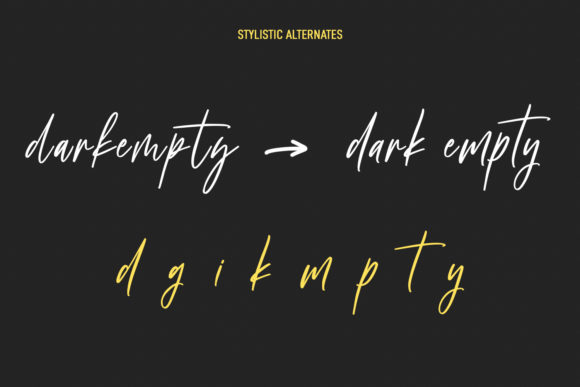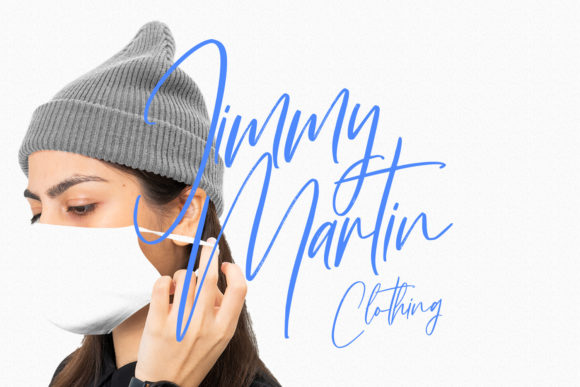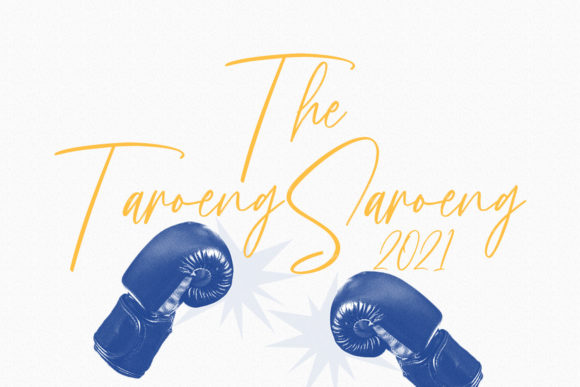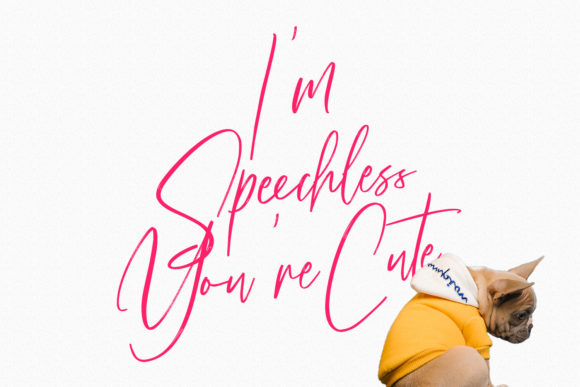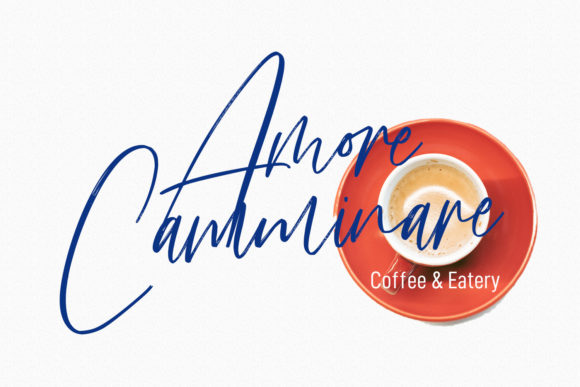
About Frank Martin Font
Frank Martin is a chic and stylish script font that emanates sophistication and elegance. Its stylish alternates and ligatures make this font the perfect match for any project.